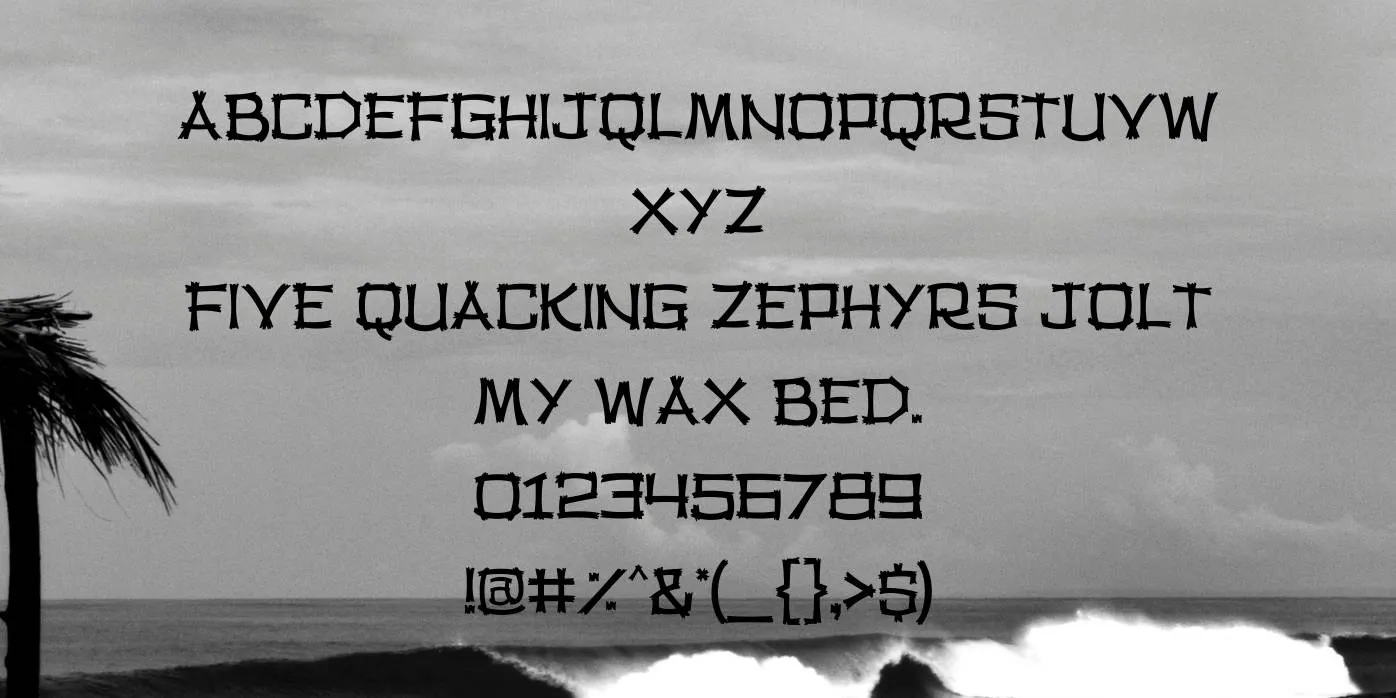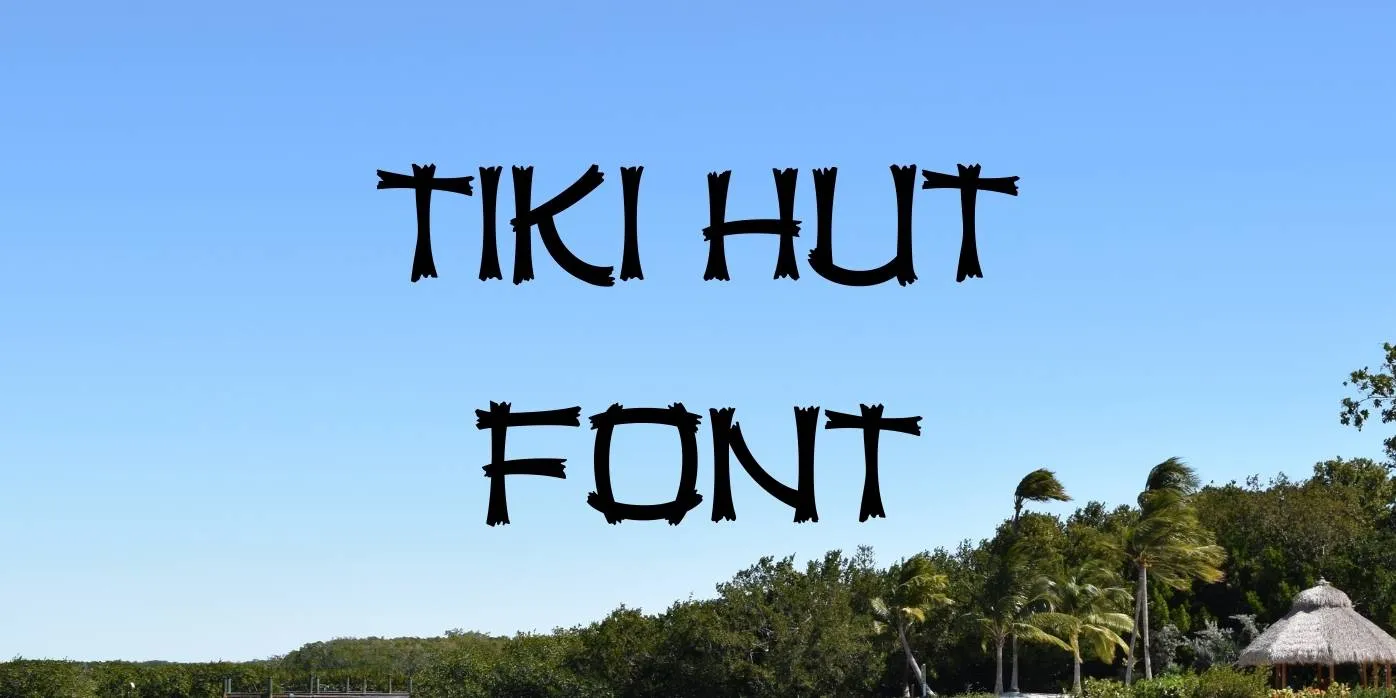
Tiki Hut Font
Here we are going to discuss the most famous and stylish typeface named Tiki Hut Font. This typeface was designed by Reg Silva Art. This is a Fancy typeface. This font family is used for different product designs.
This font family is available in common and italic styles. Its styles are very simple and effective. This font family is used everywhere and fulfills all requirements. Tiki Hut Font is a fresh typeface.
For different designing projects, this font is best and provides good results. Due to its neatness and productiveness, this font is used in different types of projects. This font family is available in OTF and TTF formate. This typeface is best for creating images of different websites and blogs.
This typeface provides a great choice for informational images. This font can also be used with other different fonts. Newspaper writers can also use this stunning font. This typeface is best for use that is why many designers used this amazing font for their different projects and functions.
This font family can also increase the creativity level. This typeface is most famous due to its clean texture. Because of its uniqueness and popularity, this amazing typeface is frequently used everywhere. If you want to attract your user you must use this typeface.